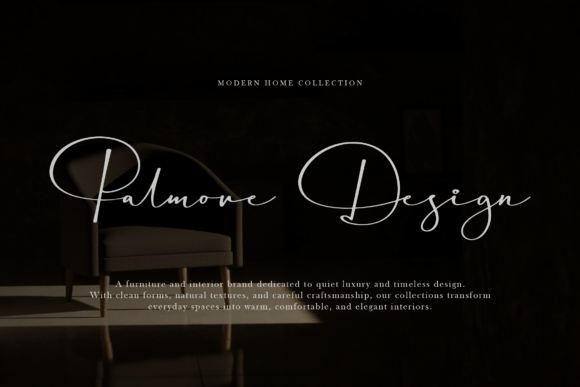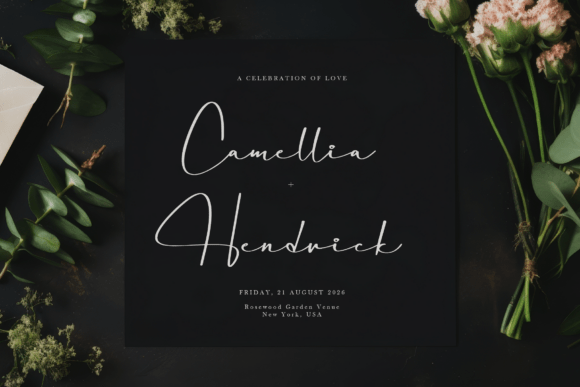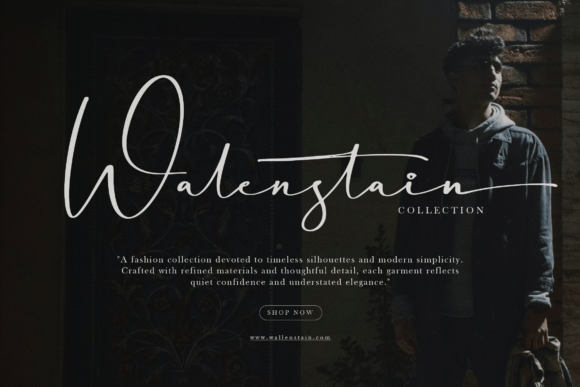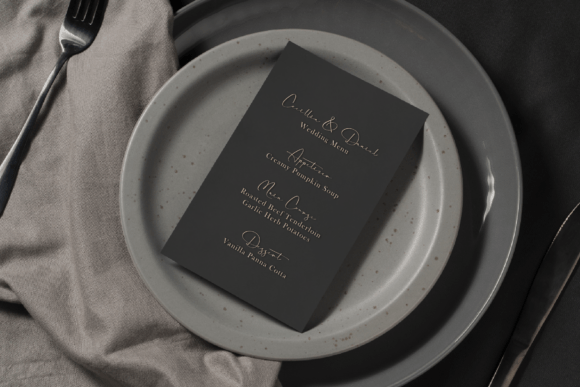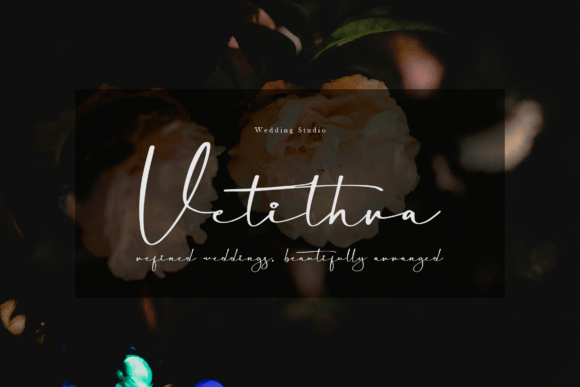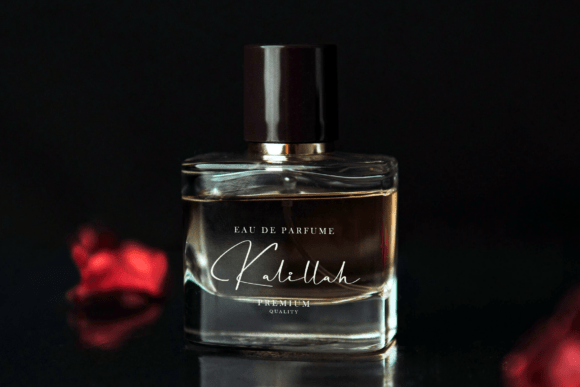
Introduction to Kostaciya Font
Capture the essence of timeless elegance with Kostaciya Signature, a classic signature script with a calligraphic soul.
Featuring high-contrast strokes and dramatic, looping ascenders, this font brings a sense of prestige and history to the modern page It balances traditional penmanship with a rhythmic, contemporary flow, ensuring your message is delivered with both warmth and authority.
Key Features of Kostaciya Font
Why Choose Kostaciya Font?
Kostaciya Font offers exceptional quality and versatility, making it a valuable addition to your design toolkit. Whether you’re creating for personal projects or commercial use, Kostaciya Font delivers professional results.